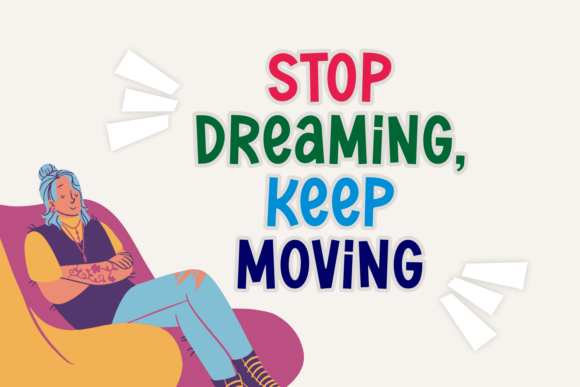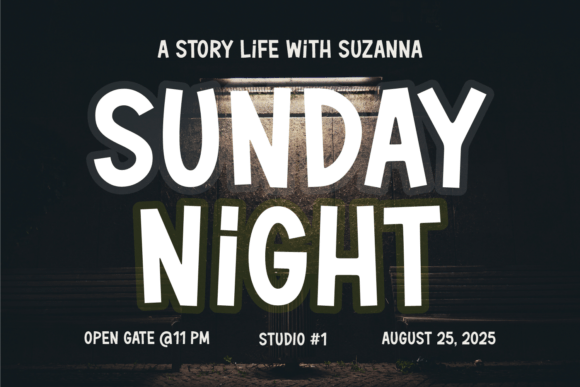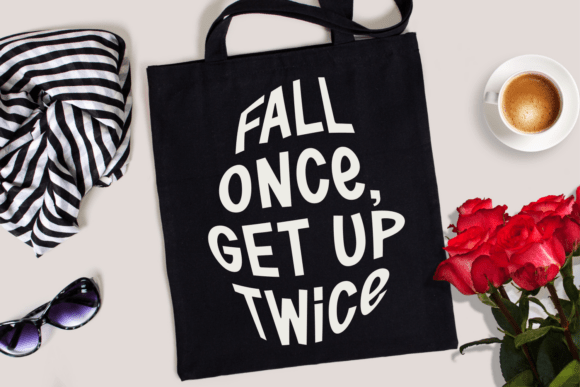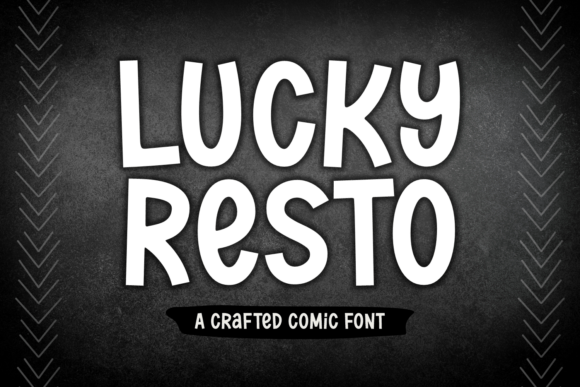
Introduction to Lucky Resto Font
The β€œLucky Resto” font is a typeface with a very friendly and cheerful appearance, typical of comic-style fonts.
The letterforms are rounded with soft corners, giving a playful and relaxed feel Despite its expressive style, this font appears to have quite good readability, especially at large sizes, as seen in the image.
Lucky Resto Font offers exceptional quality and versatility, making it a valuable addition to your design toolkit. Whether you’re creating for personal projects or commercial use, Lucky Resto Font delivers professional results.